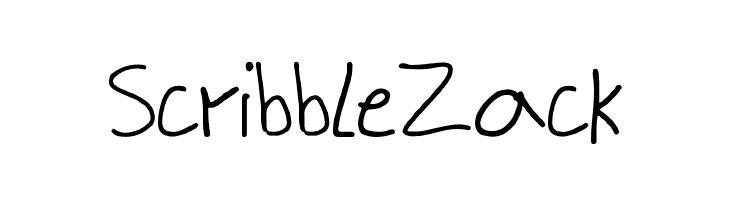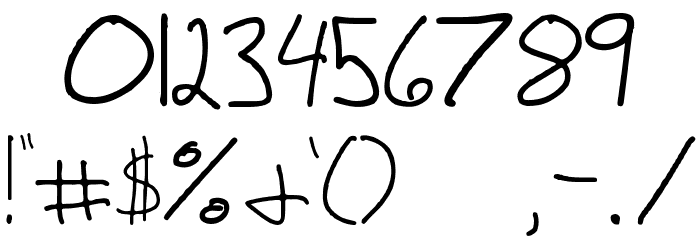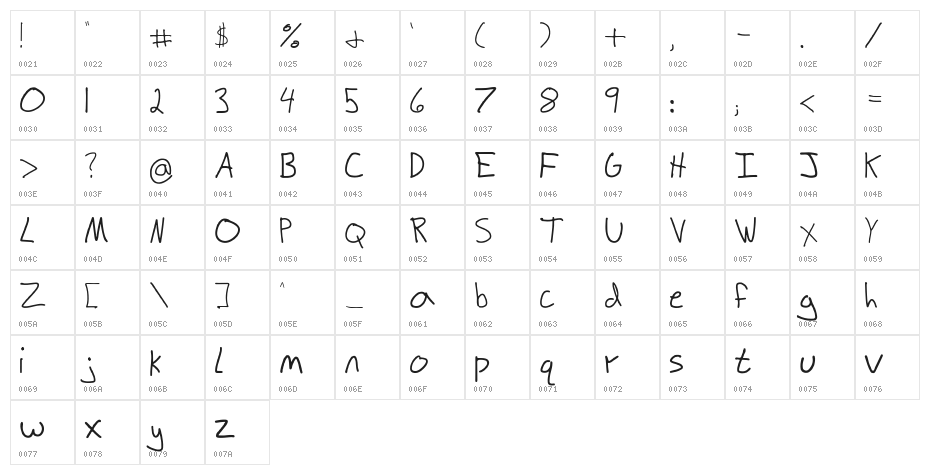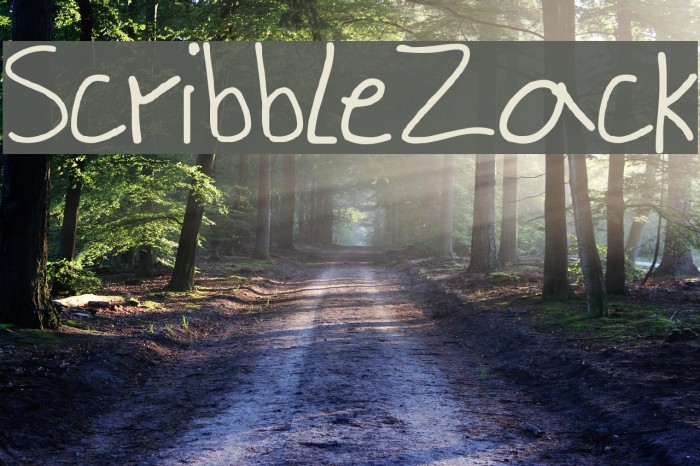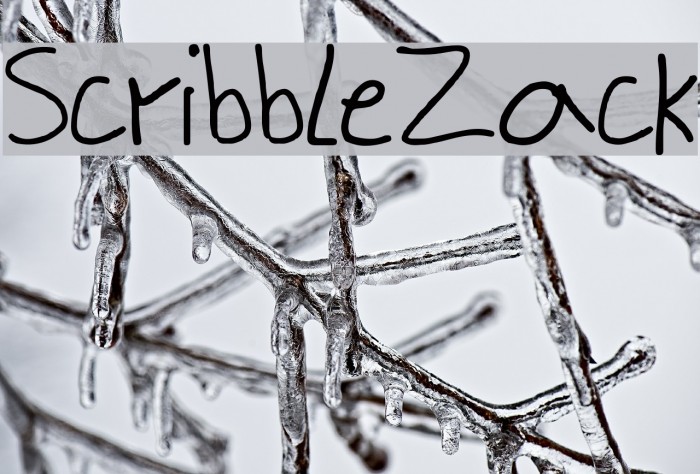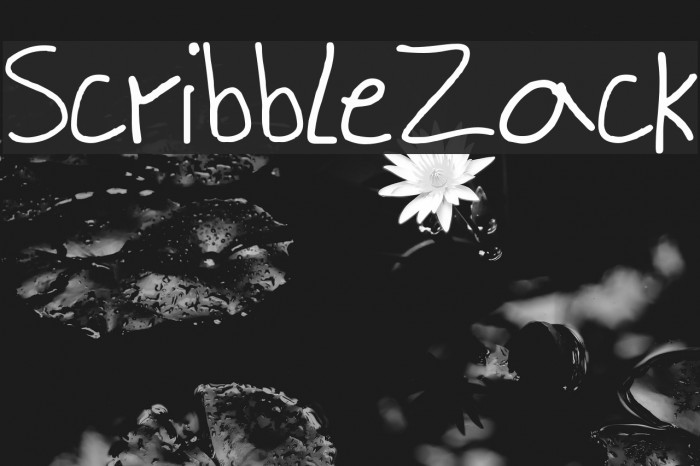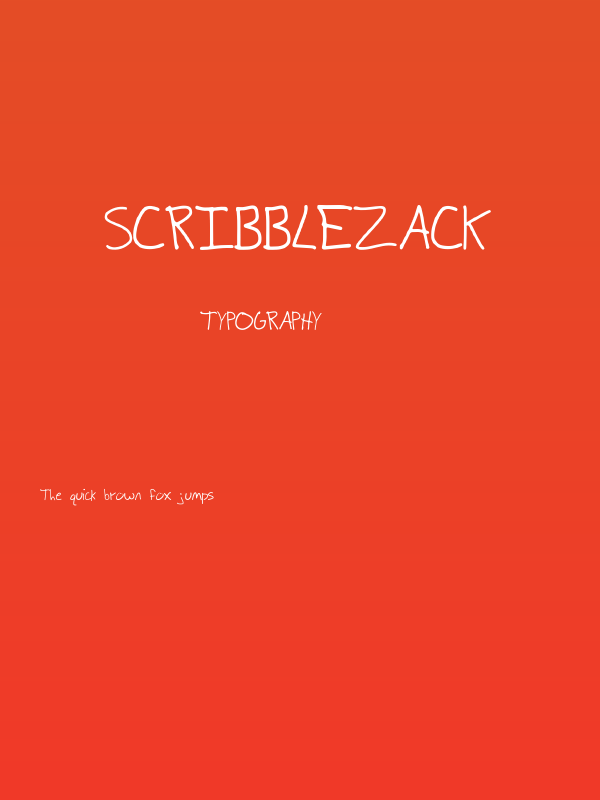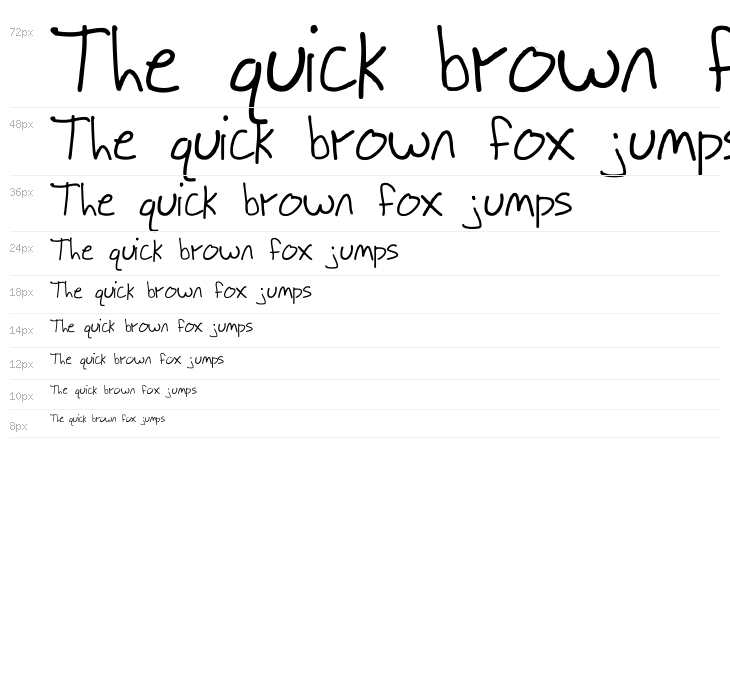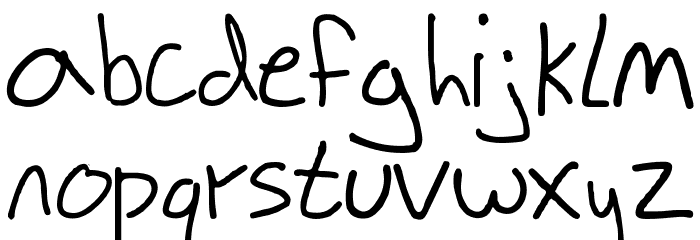
ScribbleZack Font
ScribbleZack Description
This font exudes a playful and informal vibe, characterized by its hand-drawn, scribble-like appearance. The letters are uneven and slightly irregular, mimicking the natural flow of handwriting. The strokes are bold and confident, with a casual, relaxed feel. The uppercase and lowercase letters maintain a consistent style, while the numbers and special characters integrate seamlessly into the overall design. This font is perfect for projects that require a personal, approachable touch, such as children's books, casual invitations, or creative branding.